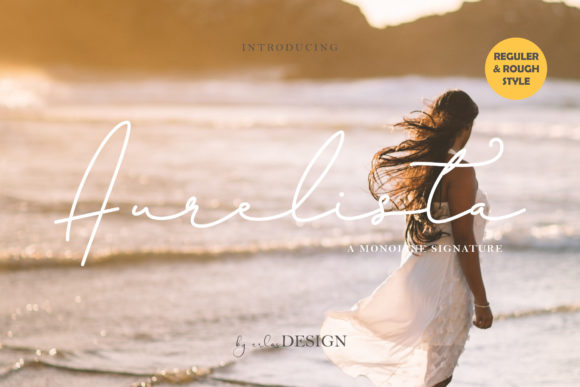
Dive into the realm of elegance and allure with Aurelista Font, a captivating script font that adds a touch of artistry to your creative endeavors. Its delicate strokes and fluid curves evoke a sense of grace and refinement, making it an ideal choice for branding projects, wedding invitations, logos, and any design seeking a sprinkle of sophistication.
Aurelista's clean, thin, and smooth vibe seamlessly blends with its inherent charm, capturing the essence of timeless beauty. The font's PUA encoding ensures effortless access to its entire repertoire of glyphs and swashes, empowering you to unleash your creative vision with boundless possibilities.
With Aurelista Font, your designs transcend the ordinary, exuding an aura of sophistication and elegance. Its enchanting aesthetics captivate the eyes, leaving an indelible impression on your audience. From branding projects that demand a touch of luxury to wedding invitations that radiate romance, Aurelista Font rises to the occasion, transforming your creations into masterpieces.
Unleash the power of Aurelista Font and witness the transformation of your designs into captivating works of art. Its graceful lines and enchanting curves add a touch of magic to every project, leaving your audience spellbound. Let Aurelista Font be your creative partner, guiding you through a journey of artistic expression and leaving a lasting impression on all who encounter your designs.